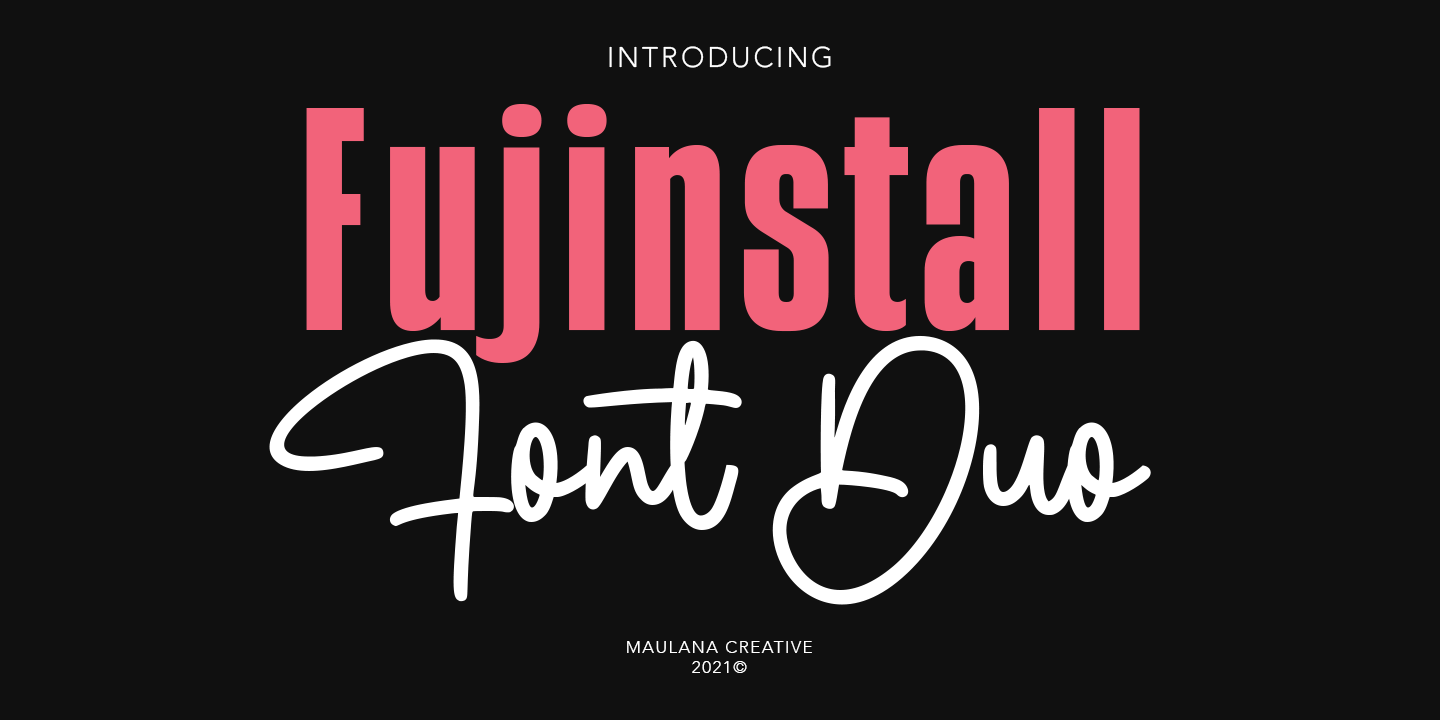
Fujinstall Font is perfect for modern tech installations, cutting-edge software interfaces, innovative app designs, contemporary digital platforms, sleek system branding, futuristic user experiences, advanced technology presentations, and progressive digital solutions. This sophisticated typeface excels in technology environments, digital interface applications, and any project requiring installation-grade precision that communicates technological advancement and systematic reliability through clean contemporary construction.
What makes Fujinstall Font exciting is its remarkable ability to embody technological precision and installation-grade reliability through systematically crafted letterforms that convey cutting-edge innovation and digital sophistication. The font features technically designed characters with modern angles and installation-inspired proportions that evoke feelings of technological trust and systematic excellence, making it ideal for brands seeking to establish credibility in tech markets and communicate through advanced visual language. Its systematic presence ensures immediate recognition of technological competence and installation reliability.
Fujinstall Font family includes multiple weights and styles: Regular, Bold, Light, Medium, Italic variations, and system alternates with technical embellishments and installation-inspired decorative elements. Each family member maintains the distinctive technological character while offering comprehensive design options for digital campaigns, from precise technical text to commanding system headlines that establish technological authority and installation credibility through systematically advanced typography.
Whether you're designing technology brand identities or creating digital installation campaigns, Fujinstall Font Free Download provides the perfect typography solution for technological branding needs. This font transforms ordinary text into advanced technical statements that communicate installation precision and technological excellence. Software companies and tech installation services choose this typeface for its ability to convey systematic reliability through precisely crafted letterforms that install confidence in every design and establish unshakeable technological credibility.